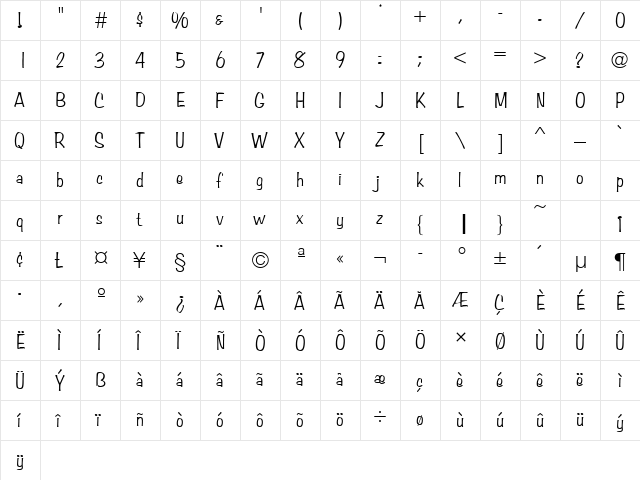
AprilURWTNor Regular
Design Context for AprilURWTNor Typeface
AprilURWTNor is a composed and adaptable typeface that performs quietly and consistently across a wide range of design contexts.
Pro Tip: Use AprilURWTNor in both headline and body roles to test its range before committing to a single application.